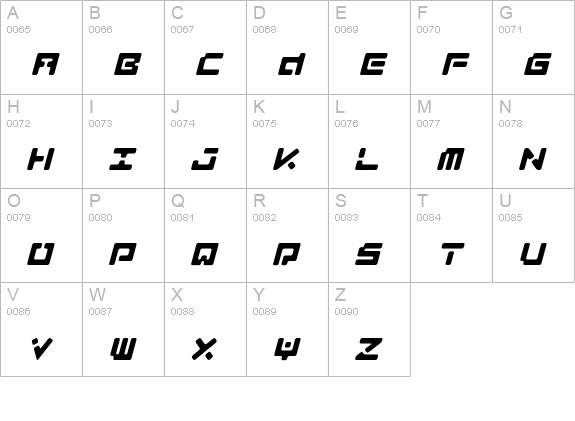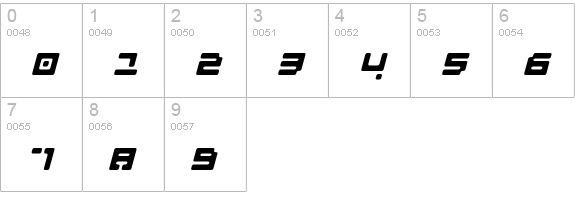
LuggageRoundBrokenHeavyObl Font Details
The LuggageRoundBrokenHeavyObl font is a unique and eye-catching display typeface that exudes a sense of ruggedness and individuality. With its distinctive rounded and broken letterforms, this font is perfect for adding a touch of edginess to your design projects. The heavy weight of the characters gives a strong presence, making a bold statement in any layout. Despite its rough and broken appearance, the LuggageRoundBrokenHeavyObl font is surprisingly versatile and can be used for a variety of design purposes, from posters and flyers to branding and packaging. Its bold and impactful style is sure to grab attention and leave a lasting impression on viewers. Best of all, this font is available for free download at FontsMarket.com, making it accessible to everyone looking to add a touch of uniqueness to their creative projects. Don't miss out on the opportunity to enhance your designs with the striking LuggageRoundBrokenHeavyObl font today!